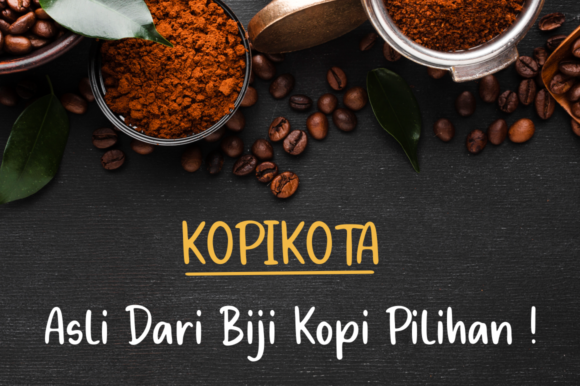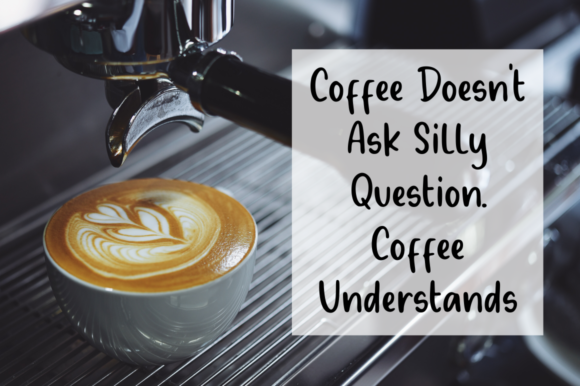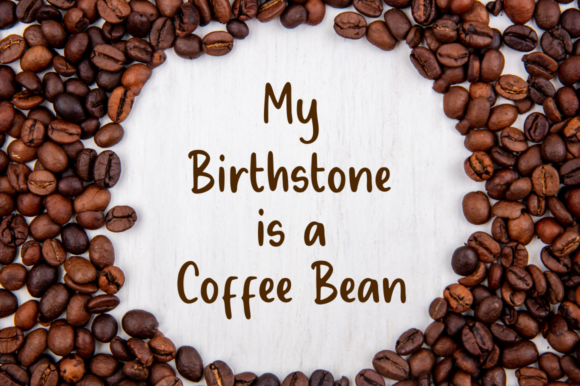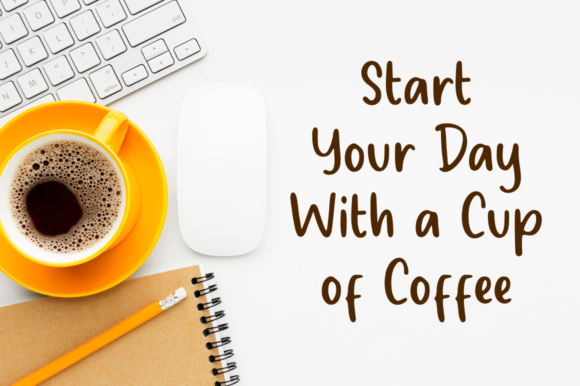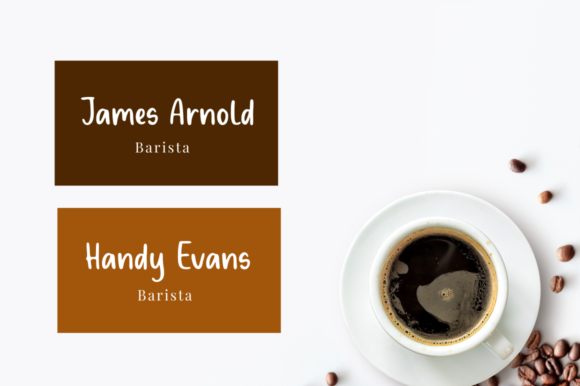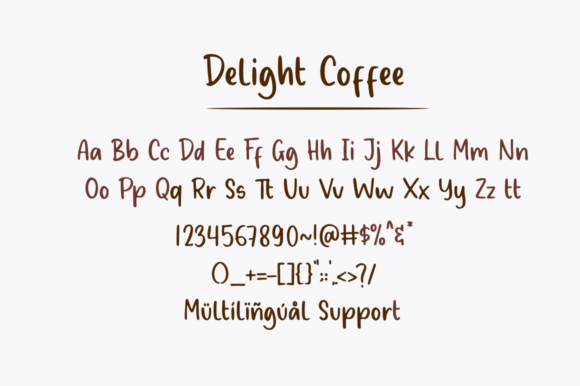
Introduction to Delight Coffee Font
As designers, we’ve all been there – staring at a blank canvas, searching for the perfect font to bring our creative vision to life. It’s that moment when the perfect design resource can make all the difference. And that’s exactly where the Delight Coffee Font comes in – a fun and simple handwritten font that’s sure to add a touch of whimsy to your next project.
With its cute and natural feel, the Delight Coffee Font is the ideal choice for creating lovely and casual designs. Whether you’re working on a personal project or a client’s brief, this high-quality font is sure to impress. And the best part? It’s available for free download, making it a valuable addition to any designer’s toolkit.
- Features a unique and modern design, making it perfect for coffee shops, cafes, and other businesses in the food and beverage industry.
- Includes a range of characters, including uppercase and lowercase letters, numbers, and punctuation marks, making it a versatile and practical choice for designers.
Honest Review: Delight Coffee Font
I recently came across the Delight Coffee Font, and I must say, it’s a fantastic design resource. The high quality of the font is immediately noticeable, making it a great addition to any creative project.
- ⚠️ Some users may find the font too playful or whimsical for certain design projects.
Overall, I’m impressed with the Delight Coffee Font. It’s a great design resource for anyone looking to add a touch of creativity to their projects. The high quality and customization options make it a great choice for designers of all levels.
Delight Coffee Font is perfect for a variety of creative projects, including:
- Food and beverage branding
- Restaurant menus and signage
- Magazine and newspaper articles